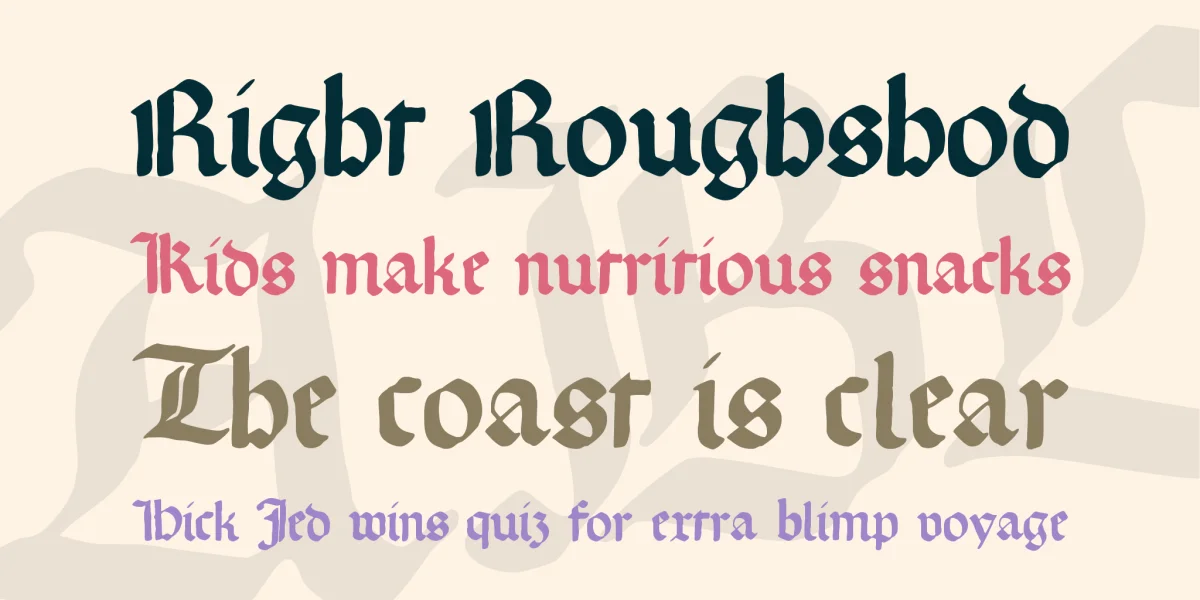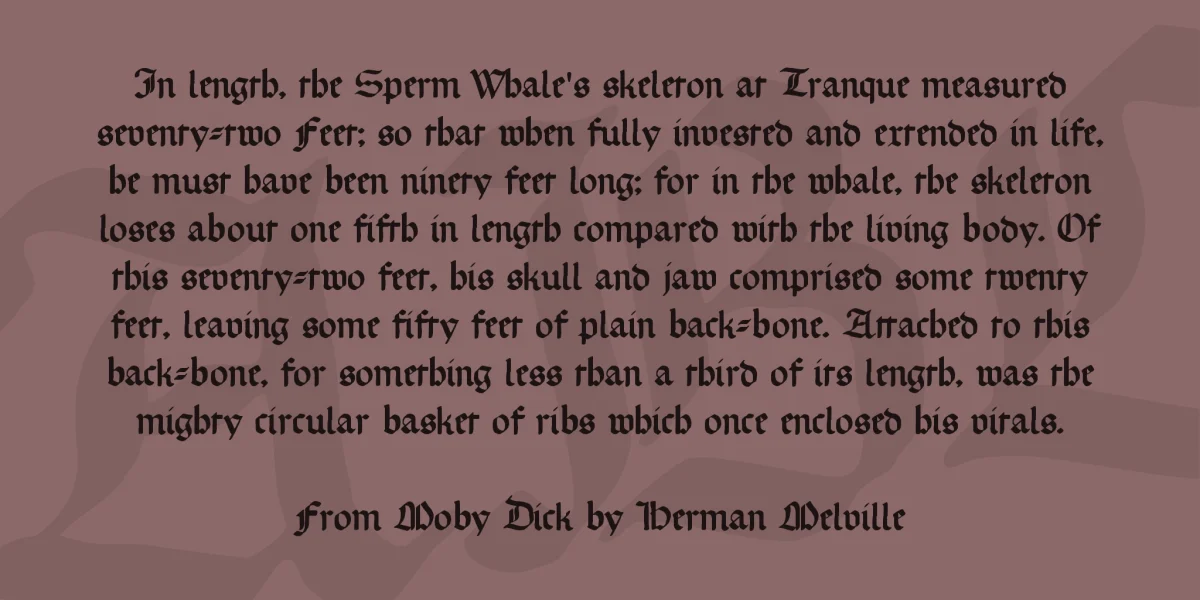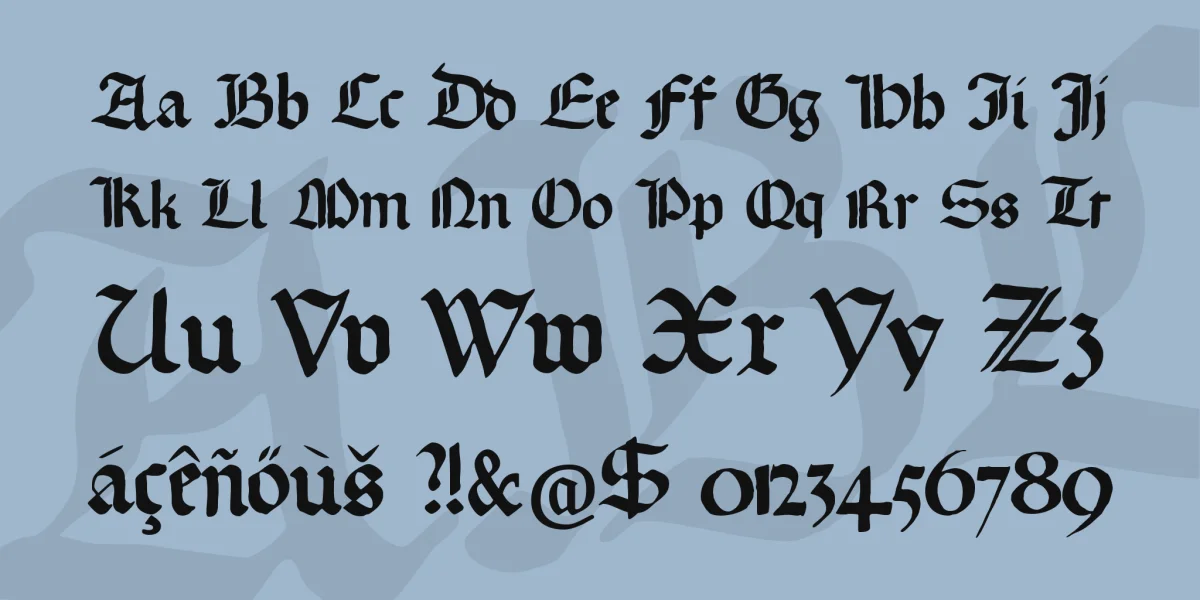
Translated from the original German description: Yet another font from 1941 in its third edition with shower & Co. published in the "German Writing Booklet" by FH Ehmcke. the 6th font in this book, the Gothic Missal. This is how Ehmcke writes a slightly rounded Gothic script, which is written with the wide foutnain pen straight posture. It is very simplified and has no feet. When you pay attention to a certain narrowing and emphasizing in the vertical direction. The capitals are easily decorated by doubling. At that time, as this gothic fonts were in use, there were no capitalized nouns in the German spelling; Incidentally, the font was mostly used for latin texts. At that time, these capital letters served to distinguish the sentence beginning and certain accented words beside uncials that are mostly, in contrast to the black font, in red color. From this ornamental use, the forms have retained their richer education.